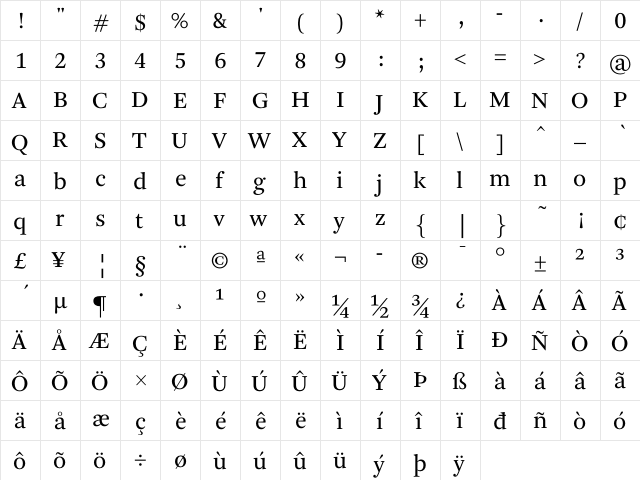
Arnhem Regular Font Preview
Arnhem Regular
Design Context for Arnhem Typeface
Arnhem offers clean, dependable letterforms without strong stylistic allegiance, making it a practical choice for designers who need flexibility.
Pro Tip: Pair Arnhem with a font of contrasting weight or personality to build a more expressive typographic hierarchy.